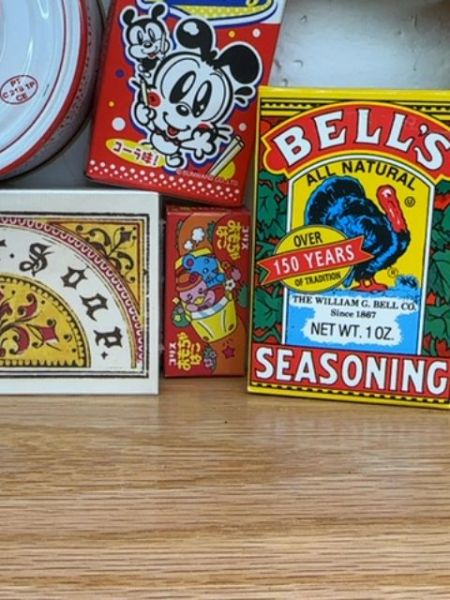
Bell's Seasoning
Bell's Seasoning is a blend of herbs and spices typically used for flavoring poultry dishes.
Since
1867
Country of Origin
USA
Typography
The typography on the packaging uses bold, serif fonts for the brand name 'BELL'S'. The use of red and white colors ensures high contrast and visibility. The lettering has a classic yet bold character, aligning with the product’s long-standing history.
Packaging
The packaging features a bright yellow background with a colorful illustration of a turkey. Red and white lettering stands out prominently, framed by decorative leaves, giving it a traditional and festive appearance.
Facts
- Bell's Seasoning is known for its signature turkey illustration.
- The product has been available for over 150 years.
- It is used primarily for seasoning poultry and stuffing.